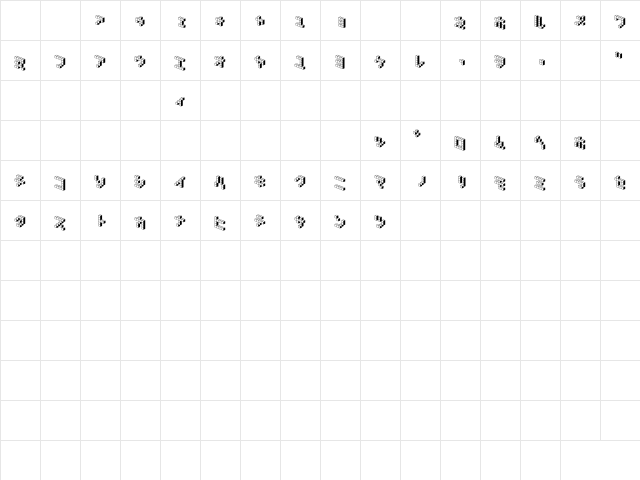
DemonCubicBlock NKP Shade Regular
Design Context for DemonCubicBlock NKP Shade Typeface
DemonCubicBlock NKP Shade is a composed and adaptable typeface that performs quietly and consistently across a wide range of design contexts.